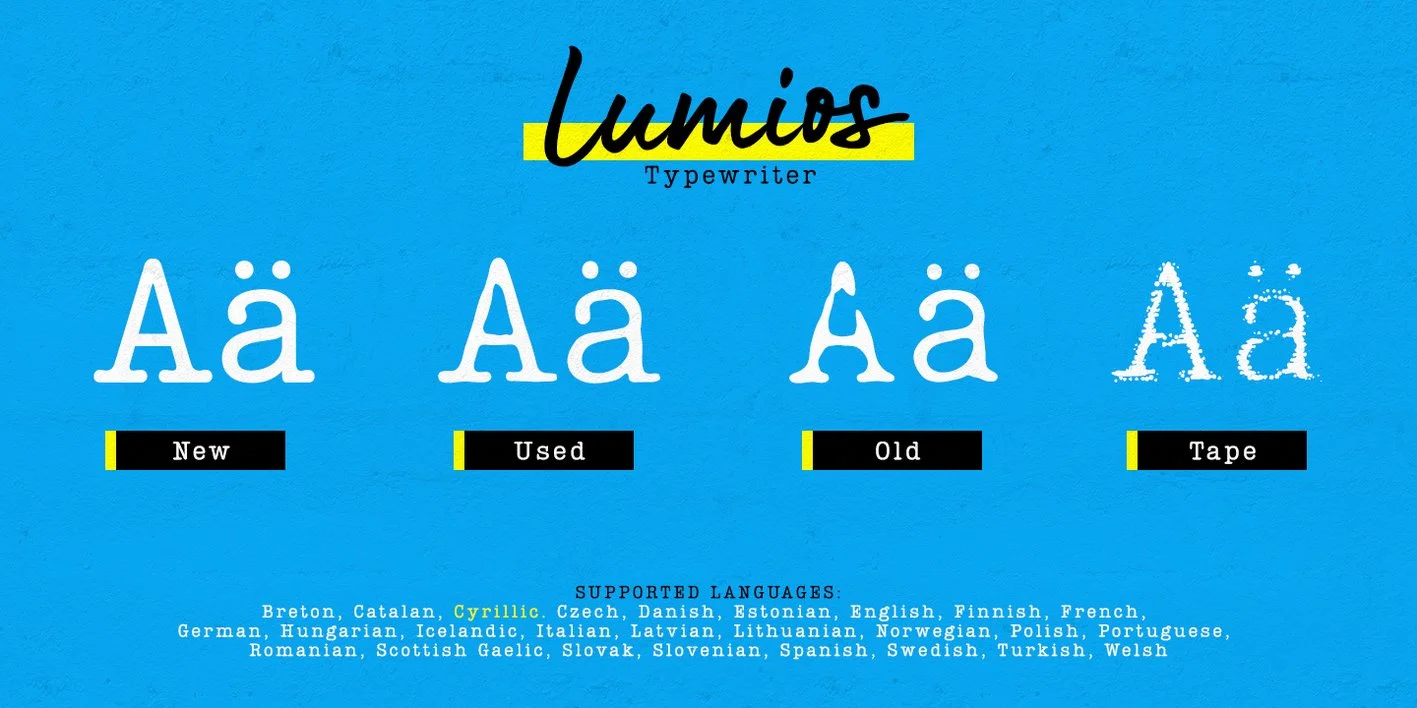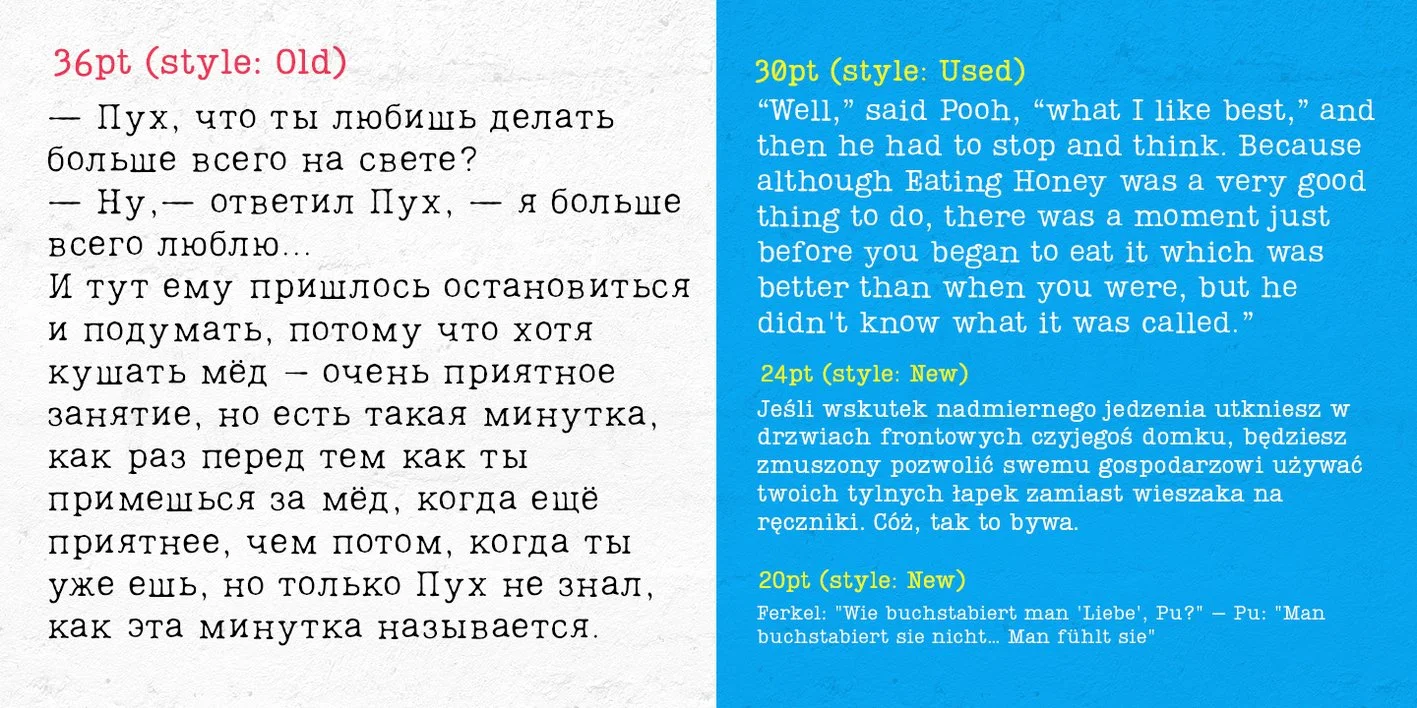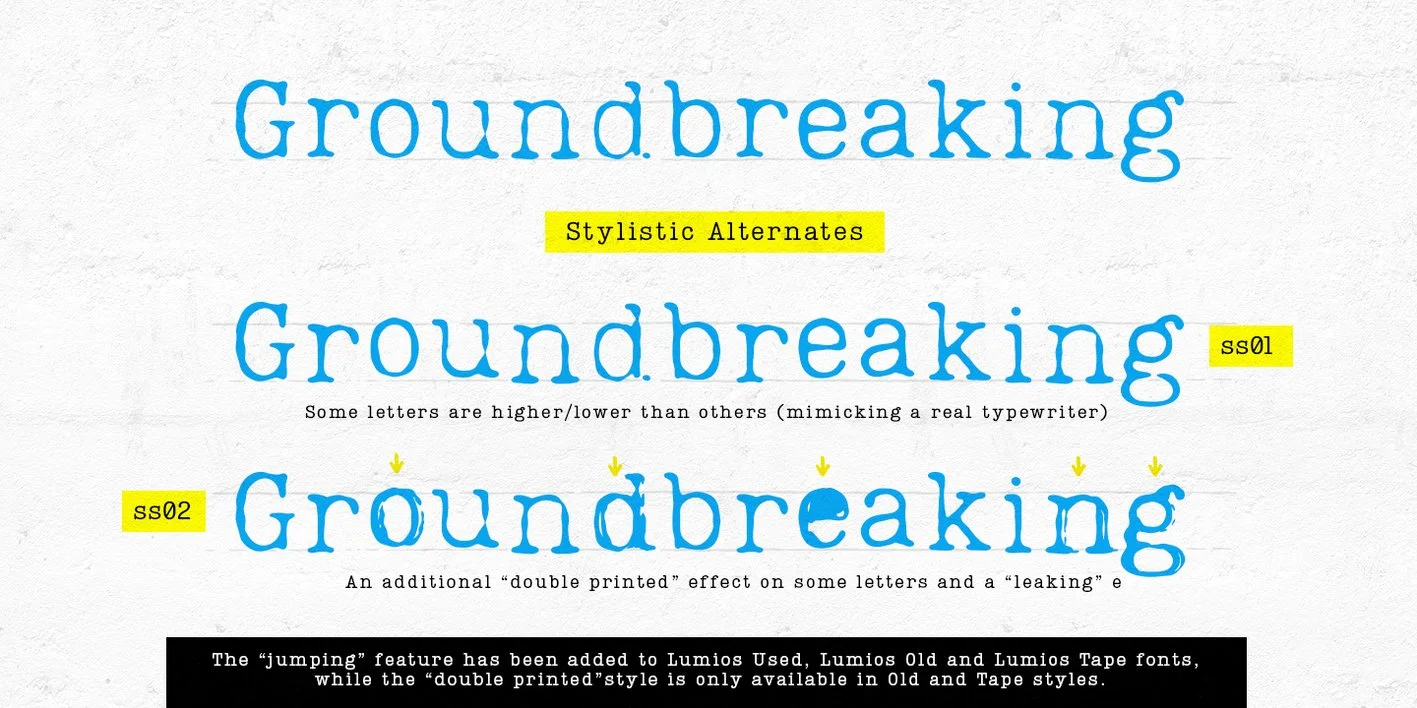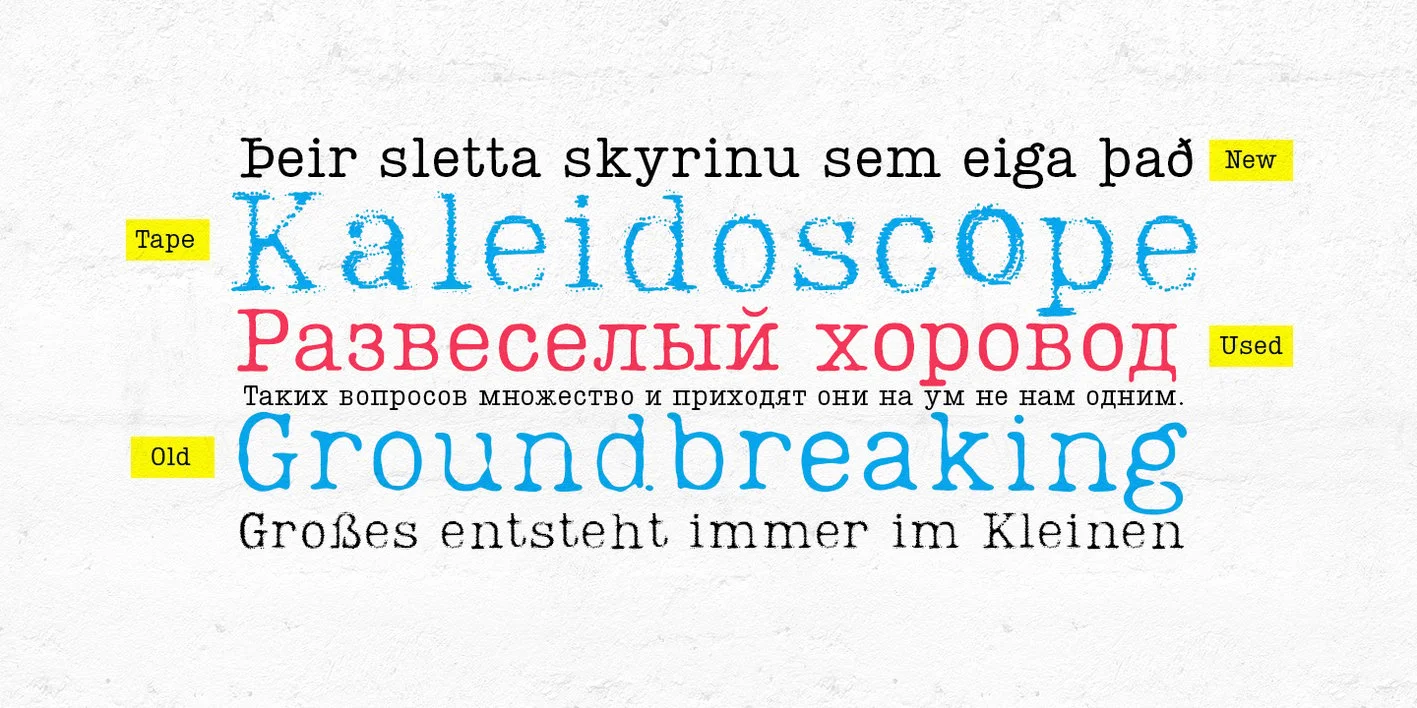
Lumios Typewriter Font
When a design brief calls for both distinctive character without sacrificing readability and immediate visual impact, type choices matter — Lumios Typewriter answers that brief. The typeface brings a versatile sensibility to a broad range of creative disciplines, with strong typographic hierarchy support that holds up whether the work is print-first or screen-first.
In practice, Lumios Typewriter proves particularly effective for editorial layouts, logo design, environmental graphics, packaging design, product labels. Designers reaching for it find that the type decisions feel resolved rather than laboured — a useful quality when client timelines are tight.
The range of applications extends to advertising campaigns, annual reports, signage systems, web design. That breadth is deliberate: the proportions and spacing were stress-tested across a wide range of mock briefs before the typeface was finalised.
Graphic designers working on identity systems find Lumios Typewriter a reliable choice for projects that demand both personality and restraint. The design avoids the self-conscious quirkiness that dates quickly, settling instead for considered distinctiveness that holds up over time.